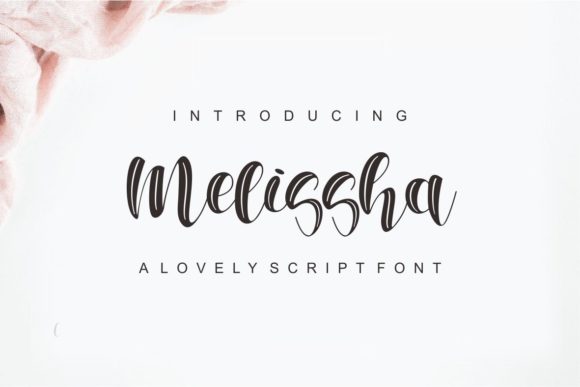
Introducing Melisha Font, the enchanting calligraphy typeface that will cast a spell on your designs. Its characters pirouette along the baseline, embodying a graceful dance of letters. Melisha isn't just a font; it's an experience, a journey into a world of elegance and romance.
With Melisha, your designs will transcend the ordinary and enter the realm of the extraordinary. Whether you're crafting logos that exude sophistication or designing wedding invitations with a touch of timeless allure, Melisha will be your steadfast companion. Its versatility extends to headings, t-shirts, letterheads, signage, labels, news, posters, and badges, seamlessly adapting to your creative vision.
Melisha's essence lies in its ability to elevate the mundane to the magnificent. Its characters possess an intrinsic charm, captivating your audience and drawing them into your design's embrace. It's a font that speaks to the heart, evoking emotions and leaving a lasting impression.
Melisha is more than just a collection of letters; it's a symphony of strokes, a masterpiece of curves and lines. Its casual yet elegant demeanor makes it suitable for a myriad of purposes. Imagine your logo adorned with Melisha's graceful script, exuding an air of professionalism and refinement. Or picture wedding invitations adorned with Melisha's romantic charm, setting the tone for a day filled with love and joy.
Melisha is not merely a font; it's an investment in your creative endeavors. It's a font that will empower you to create designs that resonate, designs that captivate, and designs that leave an indelible mark on your audience. Embrace Melisha and unlock the gateway to a world of creative possibilities.